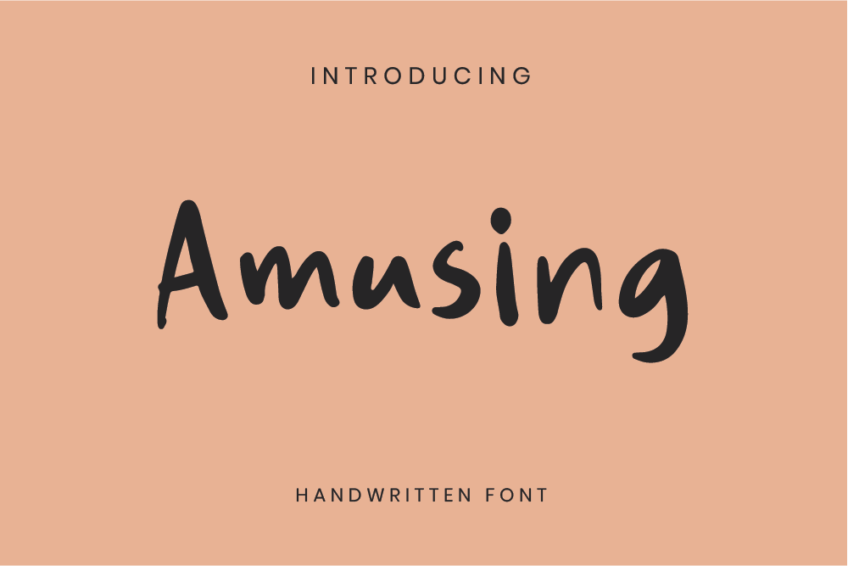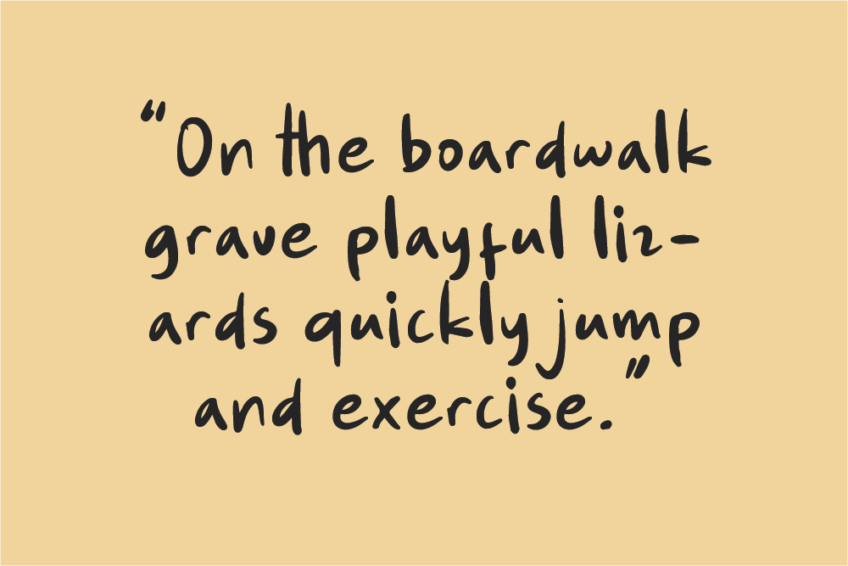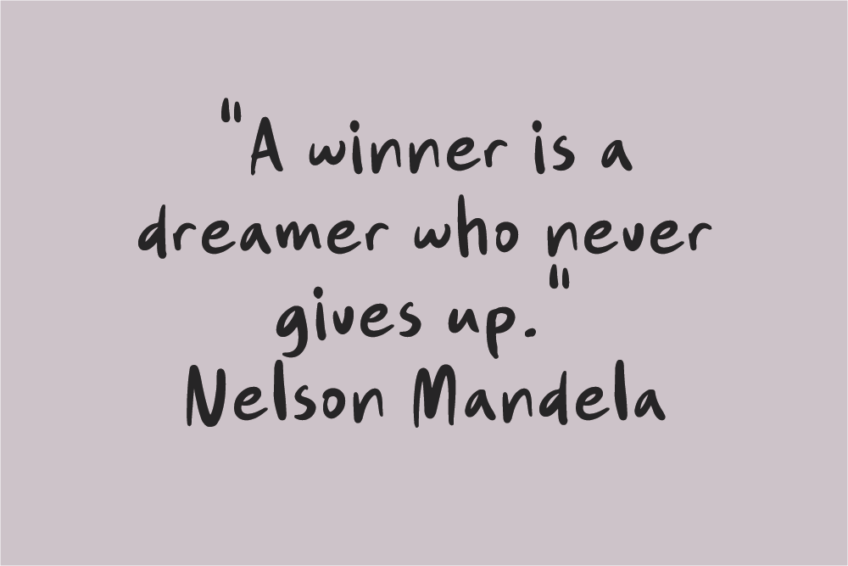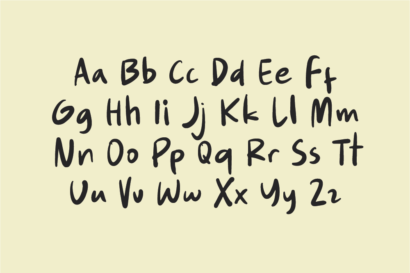
Introducing Amusing Handwritten Font, a Handwriting Font Free that combines playfulness and readability. Express yourself with this charming font, crafted to add a touch of joy to your creative projects. The best part? Amusing is a free handwriting font that brings a lighthearted vibe to your designs without any cost.
Whether you’re working on invitations, social media graphics, or personal projects, Amusing Handwritten Font is the perfect choice for those seeking a Handwriting Font Free with a unique character. Its whimsical strokes and casual charm make it versatile for a variety of applications, adding a fun and carefree element to your text.
Unleash your creativity with Amusing Handwritten Font – where free-spirited design meets expressive typography.